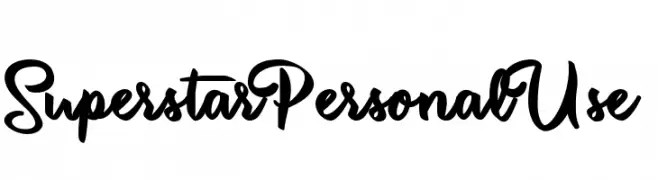
( Fonts by Mohammed Rahman )
A bold, blocky font with a strong, sports-inspired design.
( Billy Argel - billyargel.com/ )
A lively and energetic script font with bold, flowing cursive forms.
A bold, geometric font with angular shapes and outlined characters, perfect for modern designs.
( Darrell Flood )
A bold, geometric font with a modern and impactful style.
A bold, italic font with textured, brush-like strokes and a dynamic, handcrafted appearance.
A bold, brush-style font with a hand-drawn, artistic look.
A rough, brush-style font with bold, dynamic strokes.
A bold, rough brush font with a textured, hand-drawn appearance.
A bold, italic, sketch-style font with a hand-drawn, textured appearance.
A bold, sketch-like font with a hand-drawn, textured appearance.